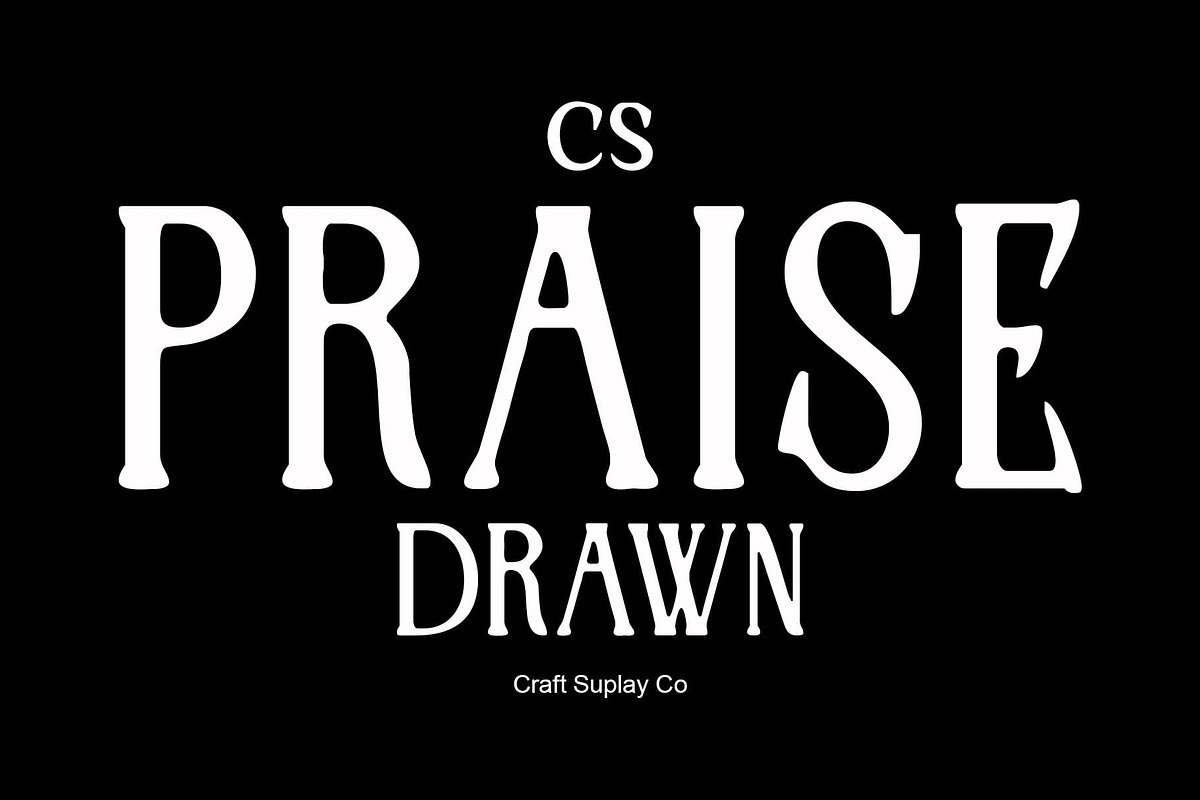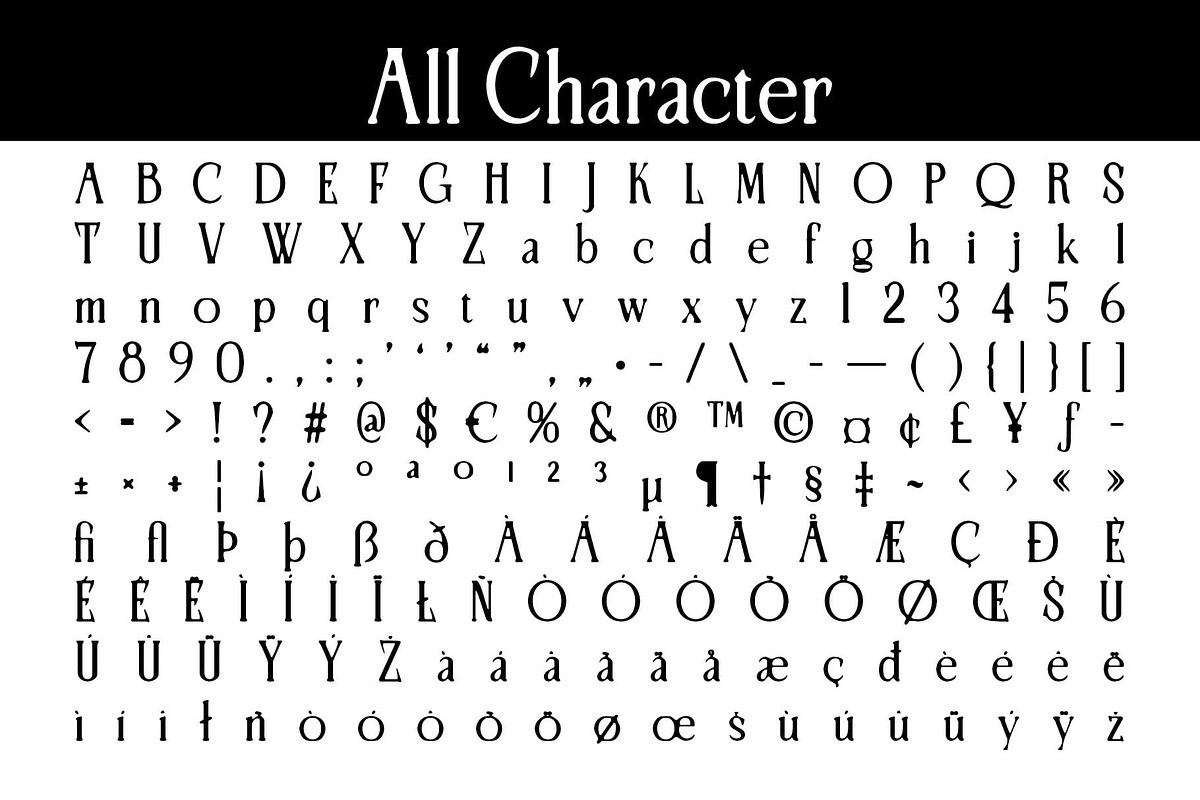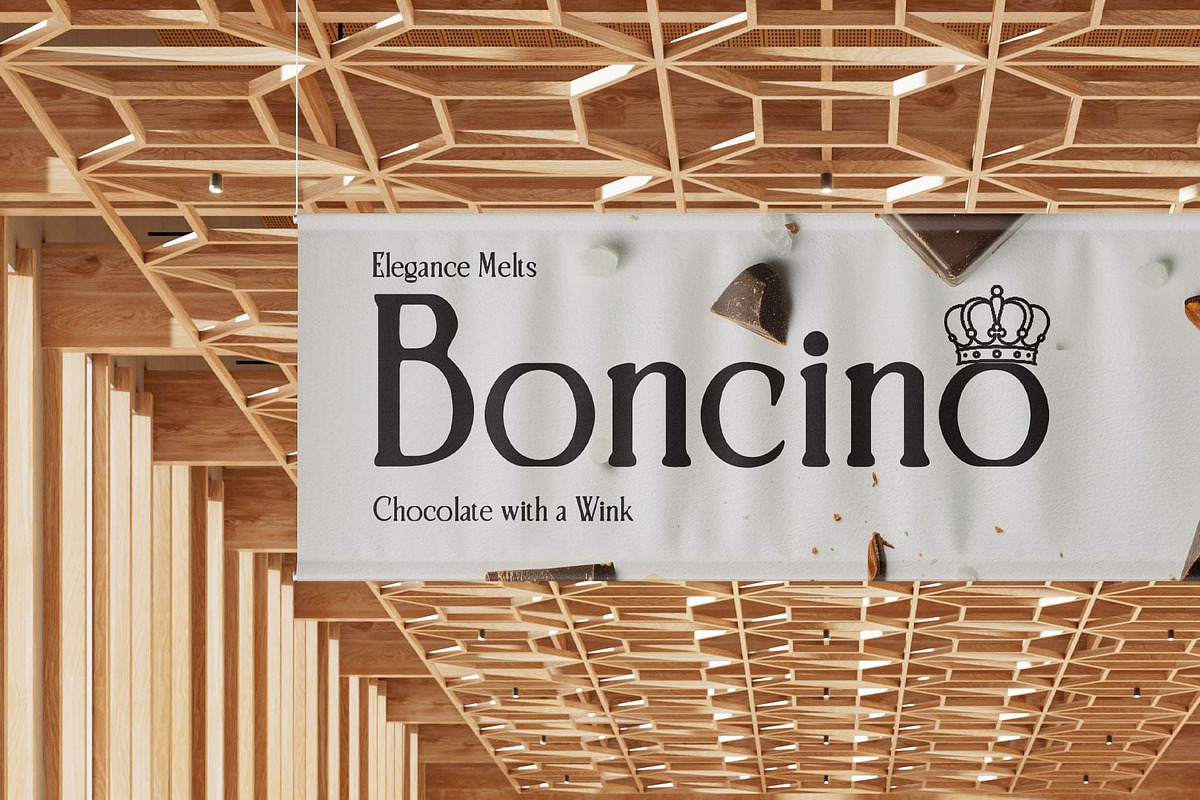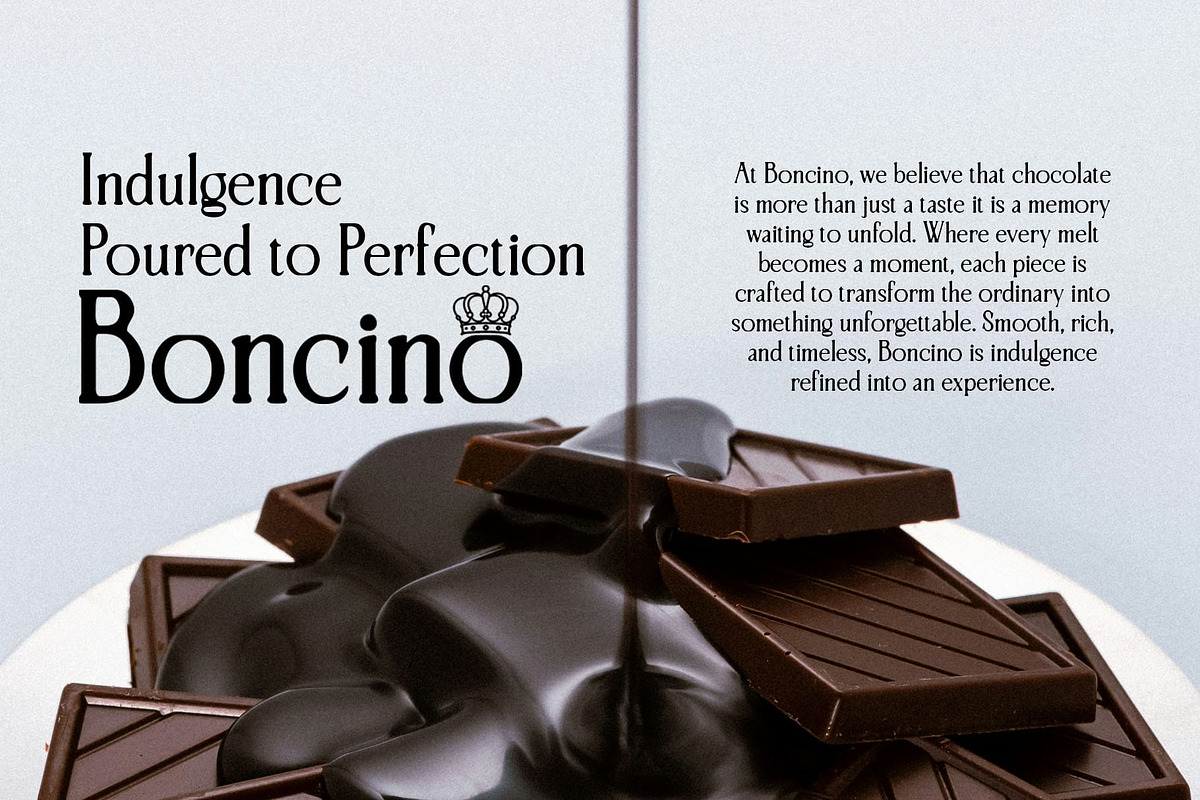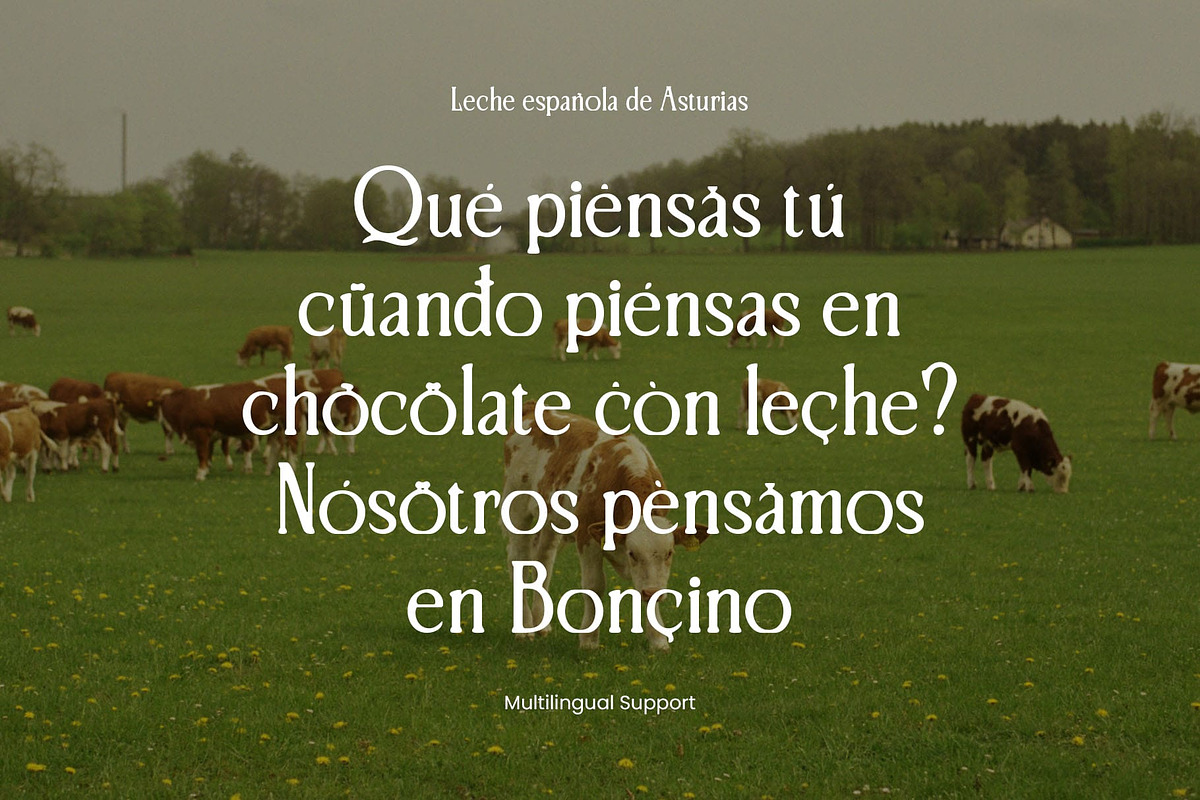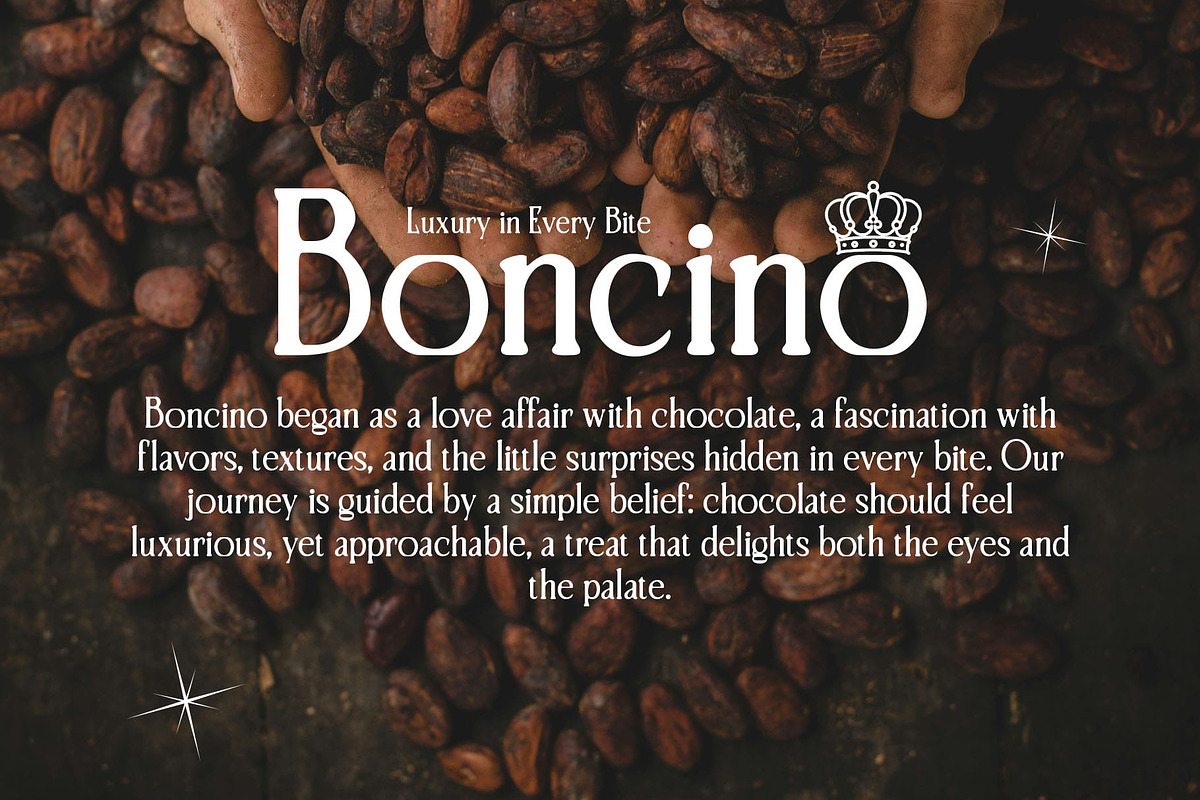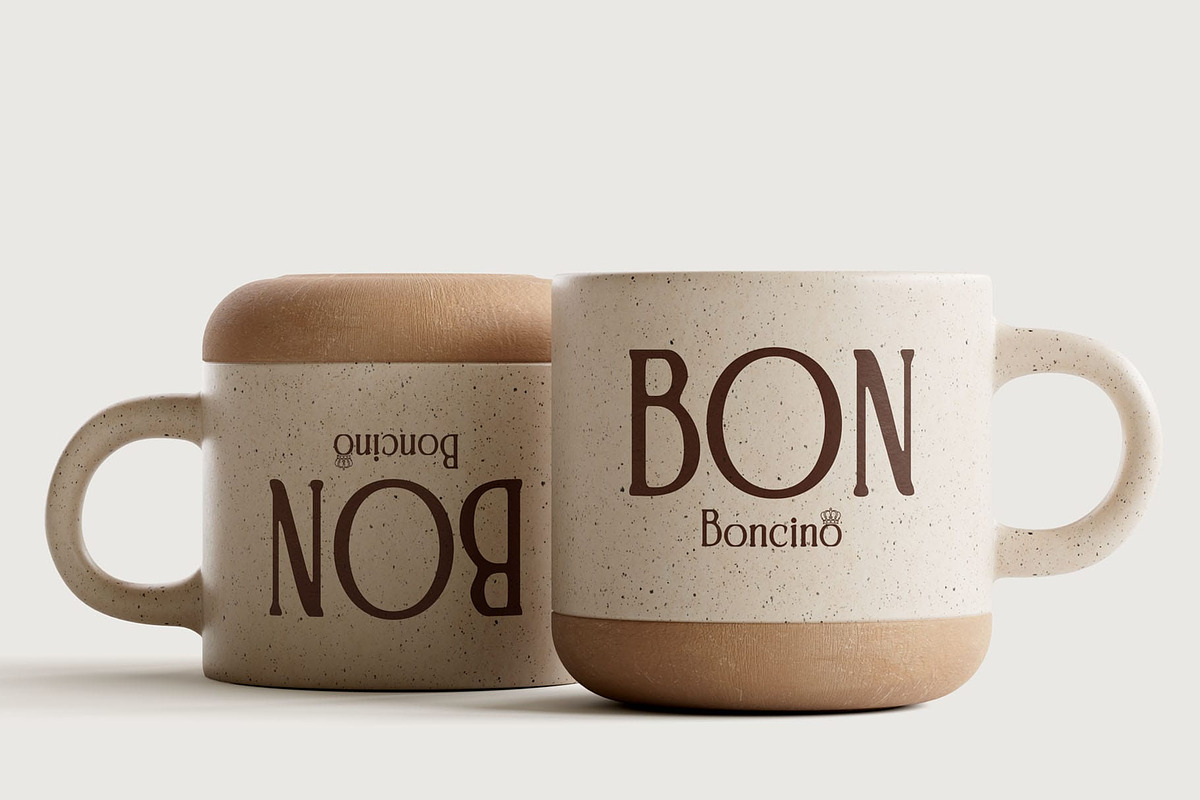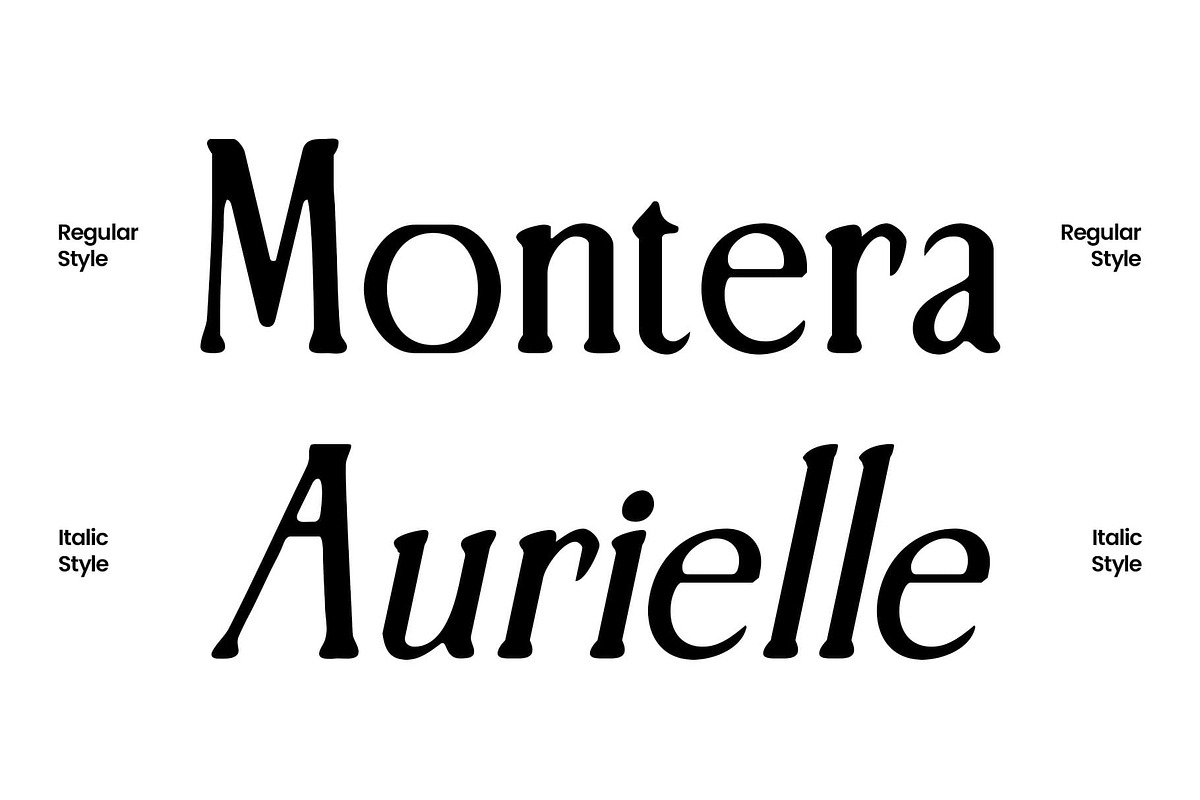
CS Praise Drawn
CS Praise Drawn – Slim Modern Serif Font with Drawn Detail
Graceful and Minimal Form CS Praise Drawn is a slim modern serif font defined by its long, refined serifs and clean, minimal shapes. Its balanced proportions create an elegant structure that feels both contemporary and timeless, making it versatile across a wide range of design projects.
Handmade Depth with Drawn Texture What sets CS Praise Drawn apart is its drawn finish, which introduces a handcrafted character into its polished form. This subtle texture adds depth and individuality, softening the clean lines with an artistic flair while maintaining sophistication.
Refined Yet Creative Blending elegance with expressiveness, CS Praise Drawn is perfect for projects that want to emphasize both refinement and creativity. Its slim forms ensure readability, while the drawn texture infuses personality, striking a balance between modern precision and handmade artistry.
Perfect for Editorial and Branding CS Praise Drawn thrives in editorial layouts, branding identities, and poster designs where clarity and elegance are key. Whether used for stylish headlines or sophisticated logos, it offers designers a font that communicates creativity with a touch of handcrafted charm.
- CS Praise Drawn Regular
- CS Praise Drawn Italic